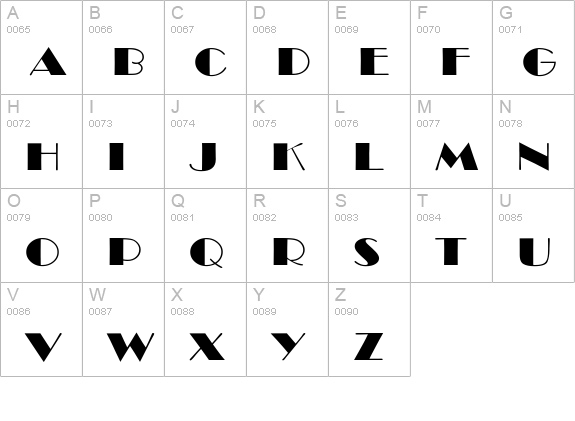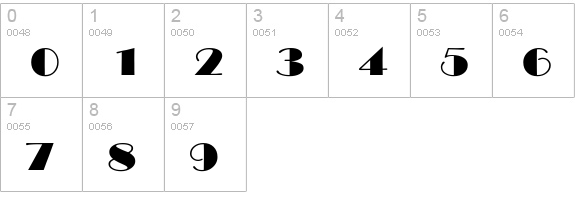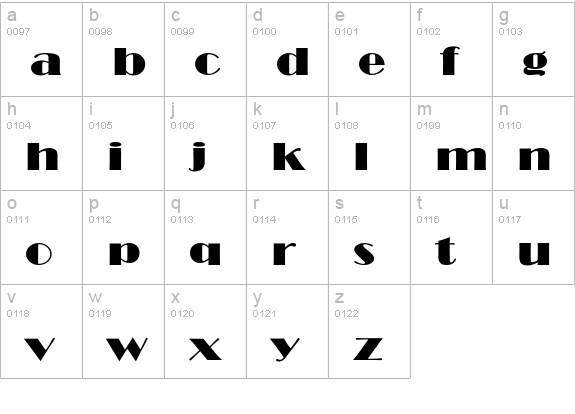
BroadwayExt-Normal Font Details
BroadwayExt-Normal is the standard, neutral variant in the BroadwayExt typeface family \xE2\x80\x94 well suited to general body text, paragraphs, and standard typographic work.
BroadwayExt-Normal font is a striking and bold typeface that exudes a sense of modernity and sophistication. With its elongated and sleek letterforms, this font is perfect for creating eye-catching headlines, logos, and signage that demand attention. The clean lines and sharp edges of BroadwayExt-Normal make it a versatile choice for a wide range of design projects. Best of all, BroadwayExt-Normal is available for free download at FontsMarket.com. This means you can easily add this stylish font to your collection without any cost, making it a valuable asset for both personal and commercial use. Don't miss out on the opportunity to enhance your designs with the distinctive charm of BroadwayExt-Normal font.